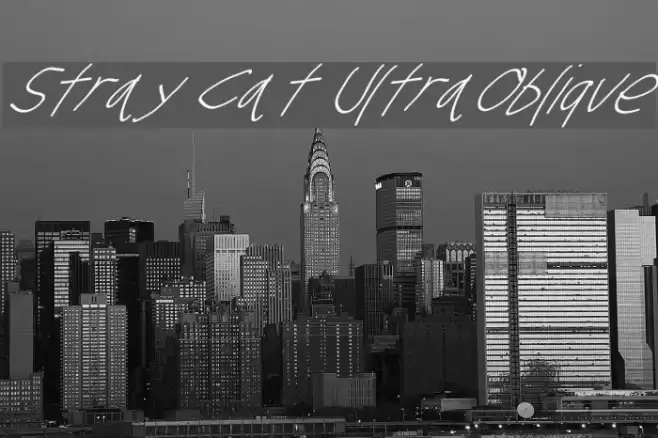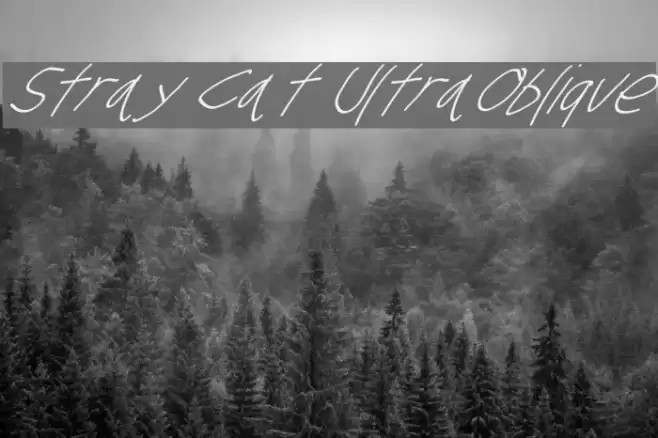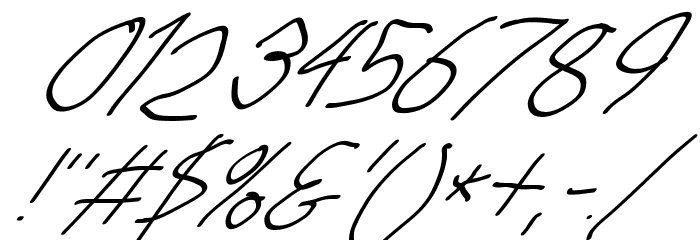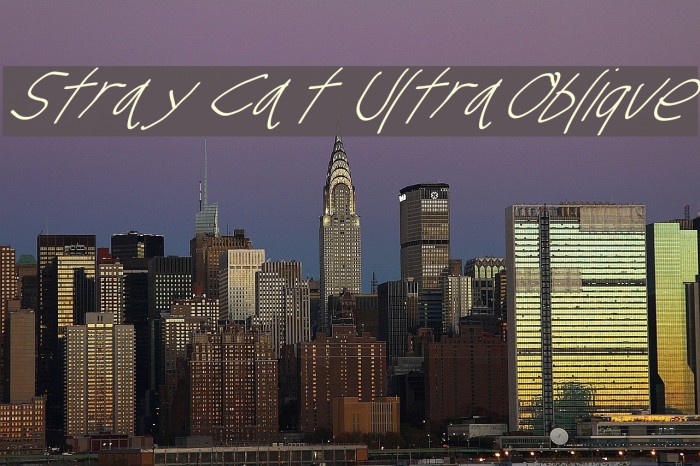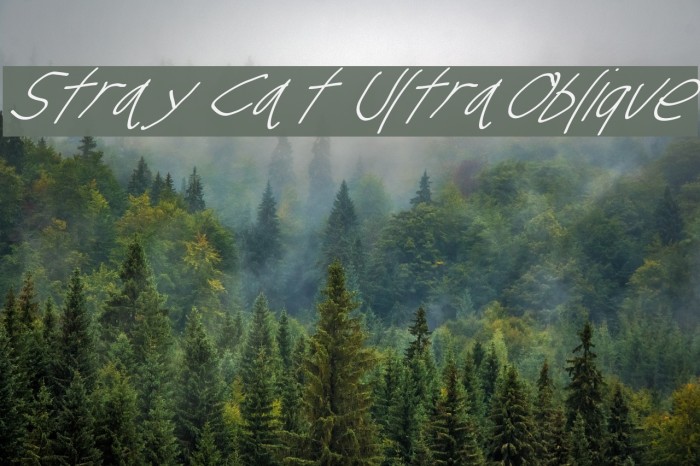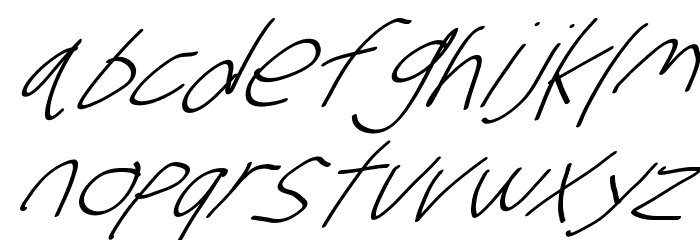
Stray Cat UltraOblique
This font features a dynamic and energetic handwritten style with a pronounced slant, giving it a sense of motion and fluidity. The strokes are smooth and continuous, mimicking the natural flow of handwriting. Each character is distinct yet cohesive, maintaining readability while adding a personal touch. The uppercase and lowercase letters are well-balanced, with the lowercase letters slightly smaller and more compact. Numbers and special characters follow the same stylistic cues, ensuring consistency throughout. The overall appearance is casual yet sophisticated, making it suitable for projects that require a personal or informal tone.
A dynamic, slanted handwritten font with smooth, continuous strokes.